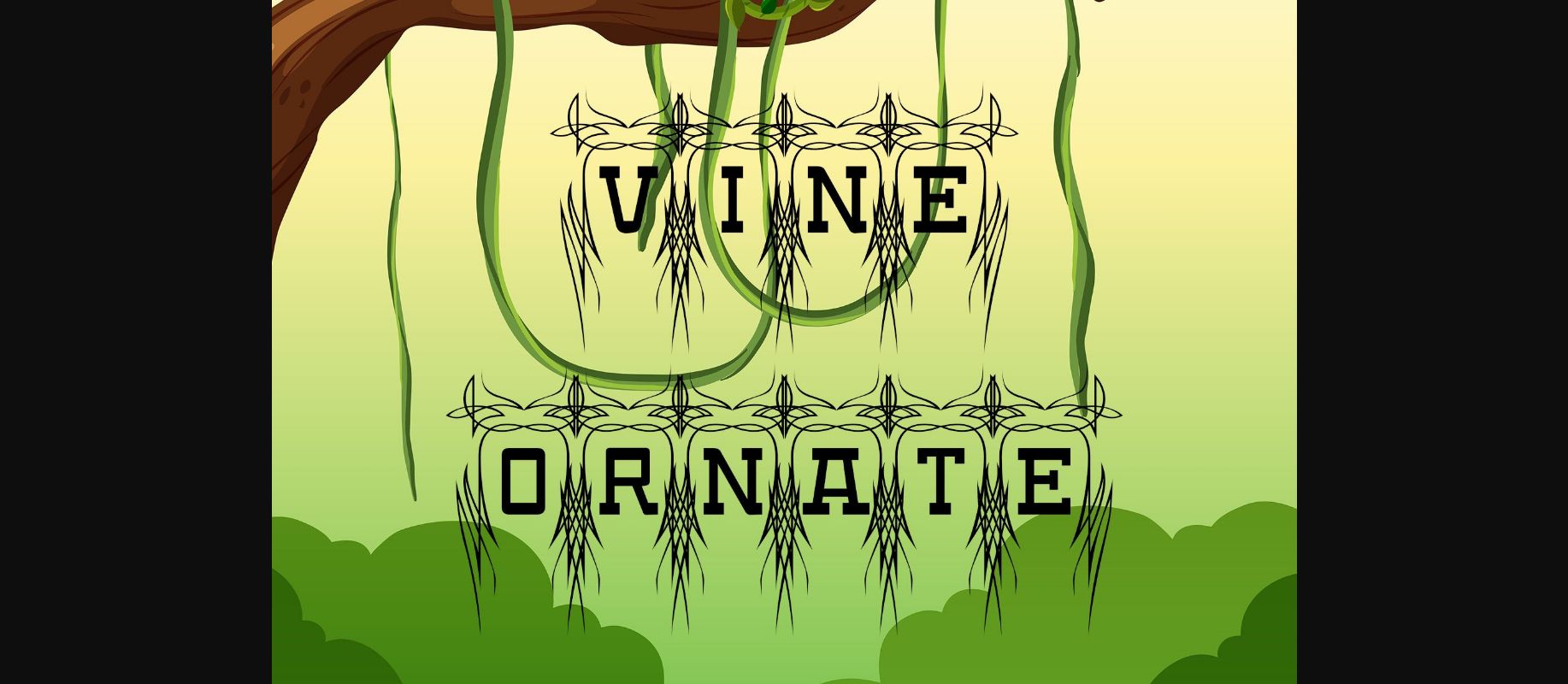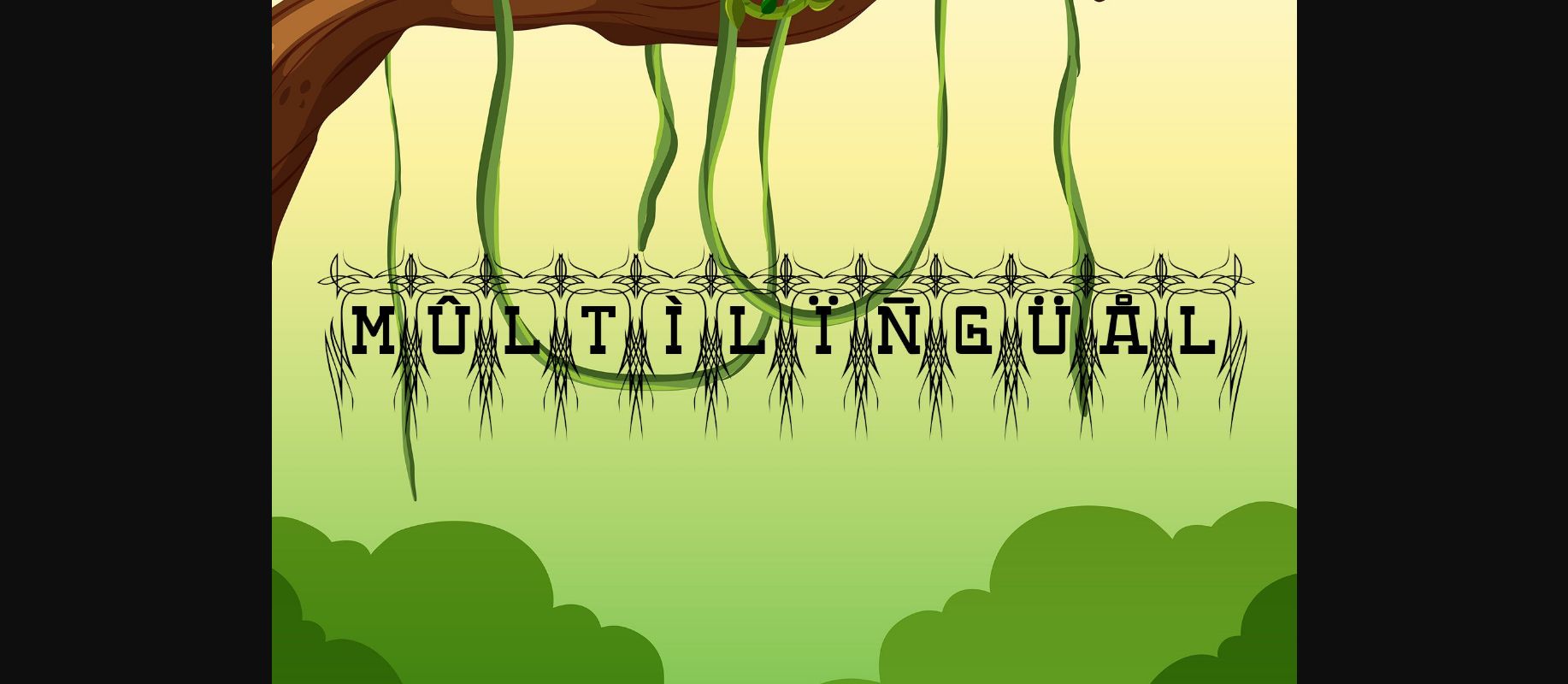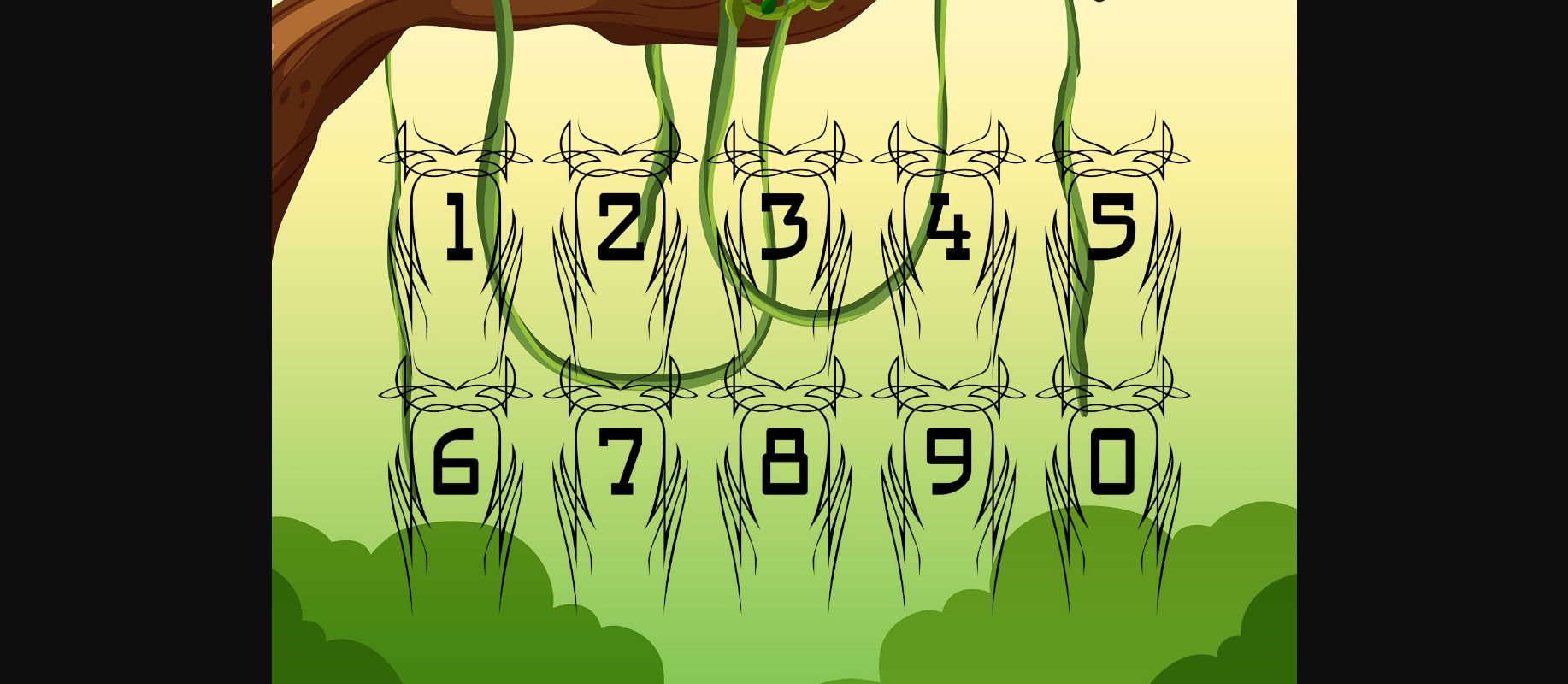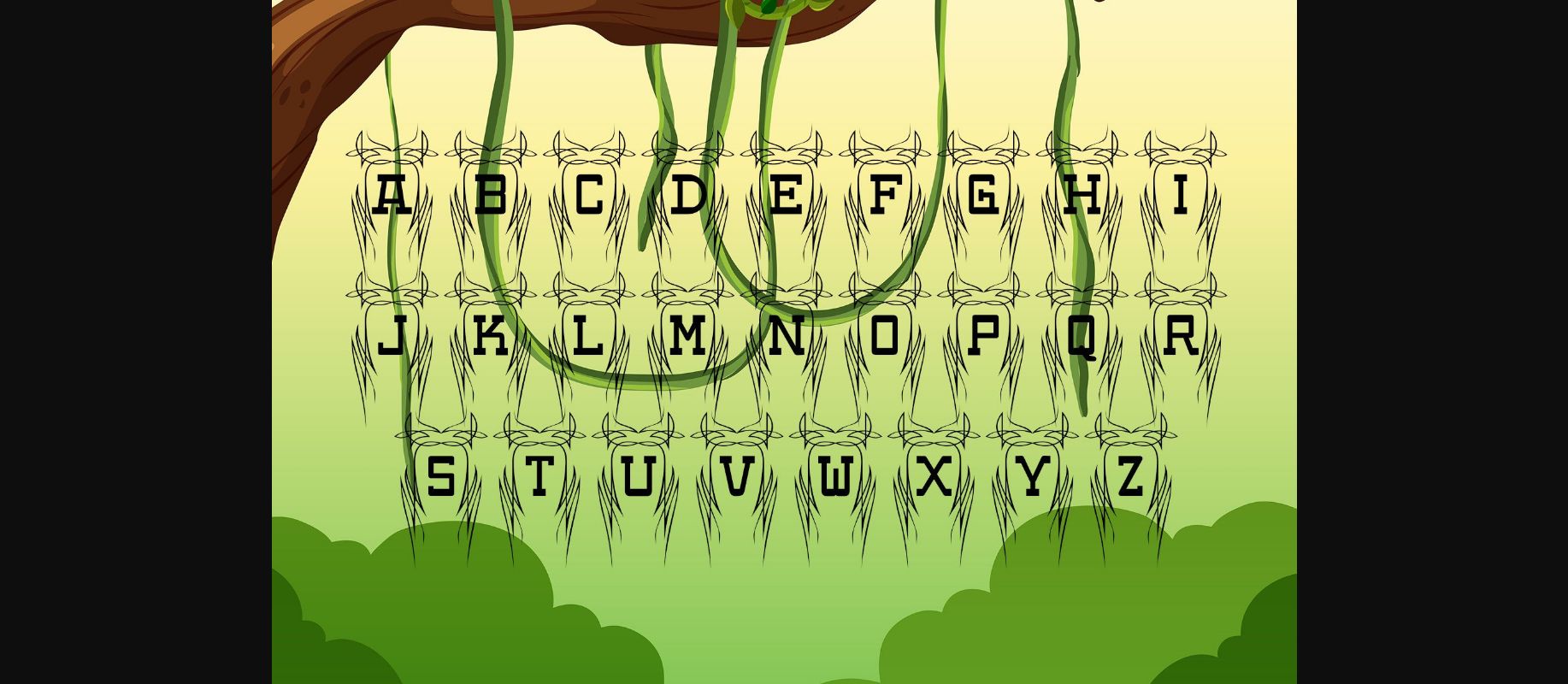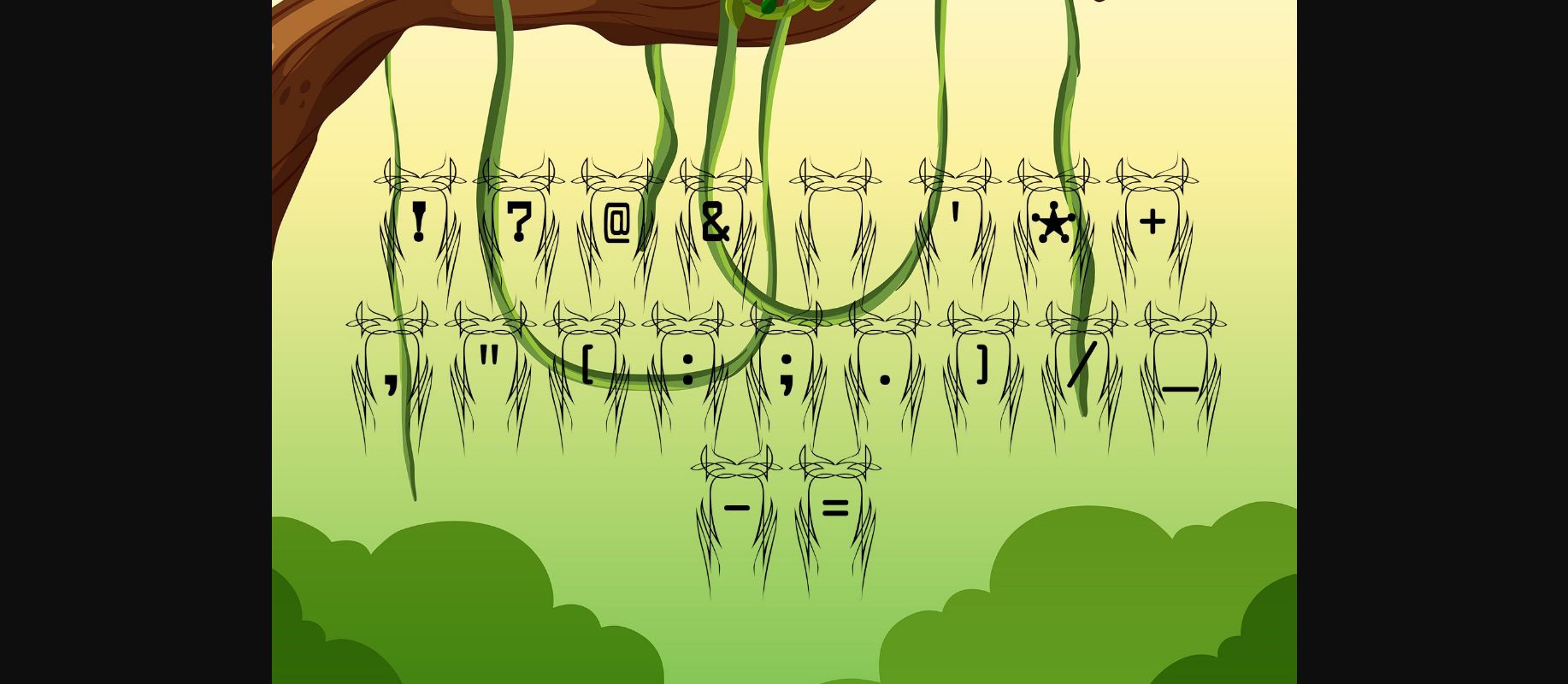
HomeDecorative FontsVine Ornate Font Decorative Fonts Vine Ornate Font FacebookXPinterestWhatsApp 1 of 7 ... Vine Ornate Font Poster 2... Vine Ornate Font Poster 3... Vine Ornate Font Poster 4... Vine Ornate Font Poster 5... Vine Ornate Font Poster 6... Vine Ornate Font Poster 7... About Vine Ornate Font Vine Ornate is a fun and unique decorative font. Add it confidently to your projects and you will be astounded by the outcome generated! DOWNLOAD NOW People also explored Play Potion Font Indoor Survival Florest Font Hobbit Font Corela Font Lore Pandemonia Font Amadela Font Fregan Corporate E 345 0 TagsVine Ornate Font Previous articleFall in Love FontNext articleButterfly Lover Font LEAVE A REPLY Cancel reply Comment: Please enter your comment! Name:* Please enter your name here Email:* You have entered an incorrect email address! Please enter your email address here Website: Save my name, email, and website in this browser for the next time I comment. Personal Use Free Sweet Cake Personal Use Free Read more about this font Yumail Personal Use Free Read more about this font Austin Personal Use Free Read more about this font Pasile Personal Use Free Read more about this font BLOG 5 Fonts That Will Dominate Design Trends in 2026 5 Fonts for 2026 That Will Dominate Design Trends Typography plays a critical role in visual communication, and as we look ahead to 2026, it’s... Best Fonts for T-Shirt Design – Top 2025 Picks The 10 Best Handwriting Fonts to Add Personality to Your Designs To increase your work productivity, choose the most readable fonts.